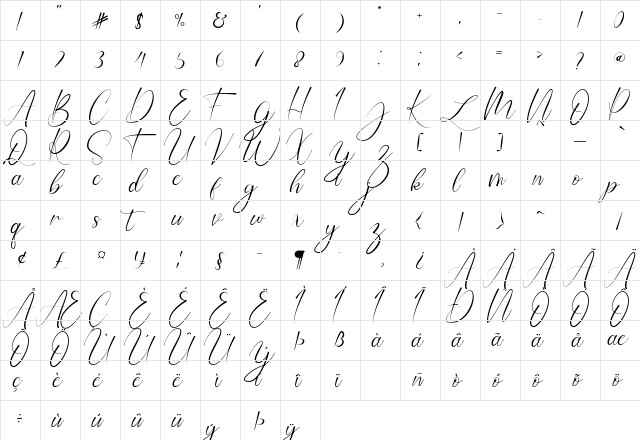
Winston Andrews Regular
| Designer | JunCreative (Muhamad Junaid) @mjart96 |
Design Context for Winston Andrews Typeface
Winston Andrews is a composed and adaptable typeface that performs quietly and consistently across a wide range of design contexts.